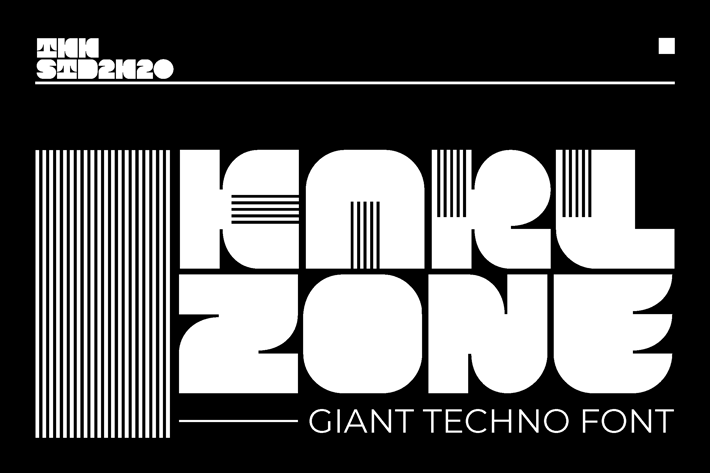
KARL zone - Modern Block Letter Font
KARL ZONE – A Heavyweight Typeface for Bold Statements
KARL Zone is a futuristic techno display typeface with bold proportions, blocky silhouettes, and a modular design inspired by sci-fi and machine aesthetics. With ultra-heavy shapes and consistent vertical rhythm, it brings a strong, structured presence to any project. Its squared terminals and dense forms evoke a digital and forward-looking vibe—perfect for tech-inspired visuals, product branding, or bold merchandise graphics.
Whether you're crafting a techno rave poster, a video game logo, or a product label for the next-gen beverage brand, KARL Zone commands attention with confidence and clarity. Its futuristic edge makes it ideal for branding, editorial headlines, promotional assets, and apparel mockups that aim for high-impact, digitally native design.
Key Features :
Techno-Futuristic Vibe
- Inspired by machine logic, science fiction, and digital landscapes with a modern industrial twist.
Ultra Bold Structure
- Built with oversized characters, geometric curves, and wide letter spacing for maximum readability.
Versatile Display Impact
- Ideal for bold branding, packaging, poster art, and digital editorial layouts with tech-forward identity.
Modular Flow
- The grid-based design ensures symmetry and structure while giving your layout a slick, modern tone.